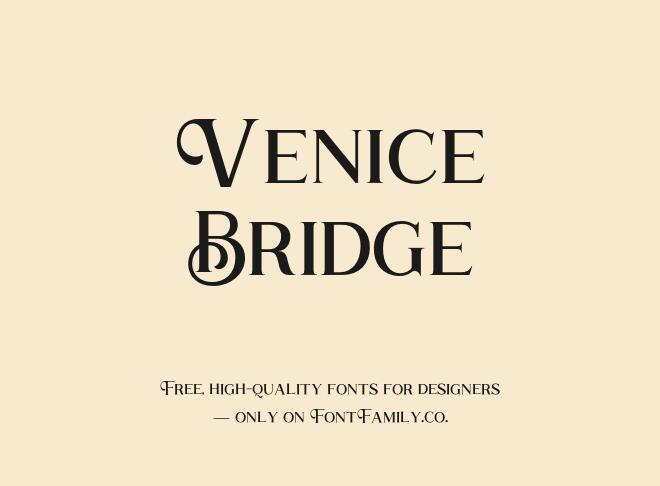
Venice Bridge Font
Venice Bridge Font is a unique blend of retro and script styles, perfect for adding a touch of vintage charm to any design project. The font's curvaceous letterforms and ornamental details evoke the romantic ambience of the iconic Venetian bridges, making it an excellent choice for travel-themed designs, branding, and editorial projects. With its characteristic style, Venice Bridge Font stands out in the crowd, offering a distinctive alternative to more traditional script fonts. Despite its decorative features, the font maintains high legibility, making it versatile for various design contexts. The Open Font License allows designers to use it freely, fostering creativity and innovation. Choose Venice Bridge Font to transport your audience to the enchanting city of Venice and make your designs truly memorable.